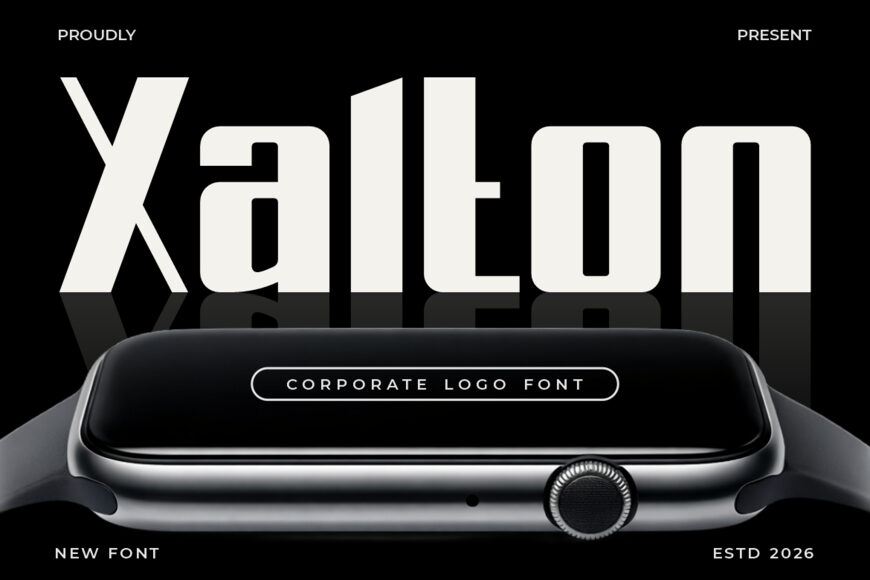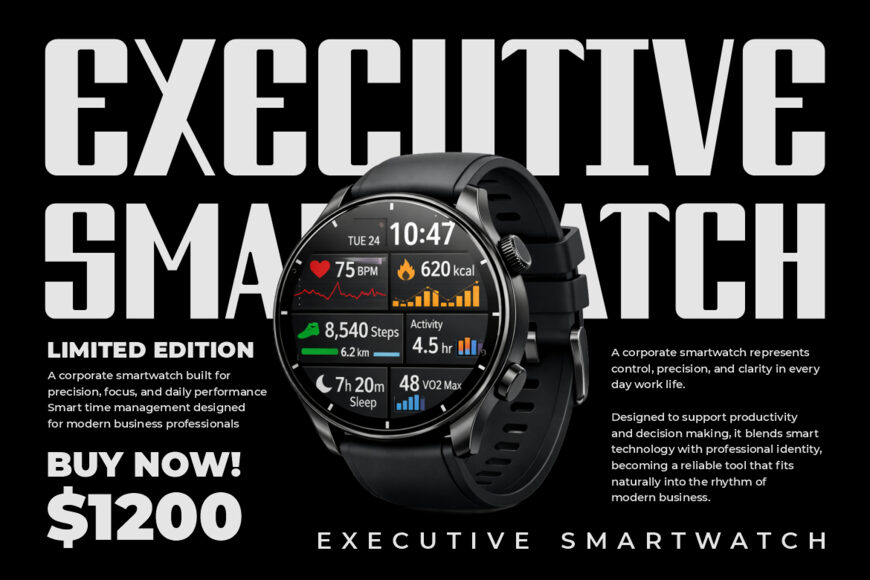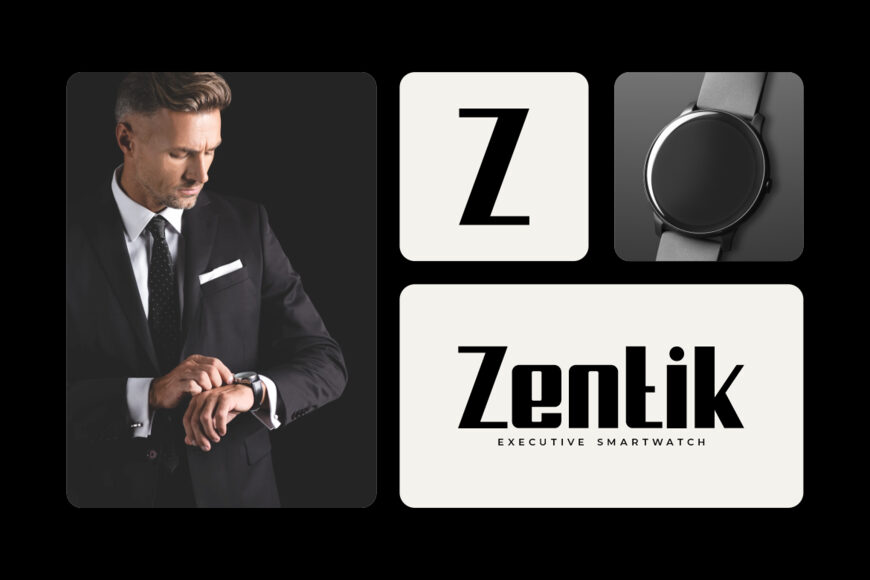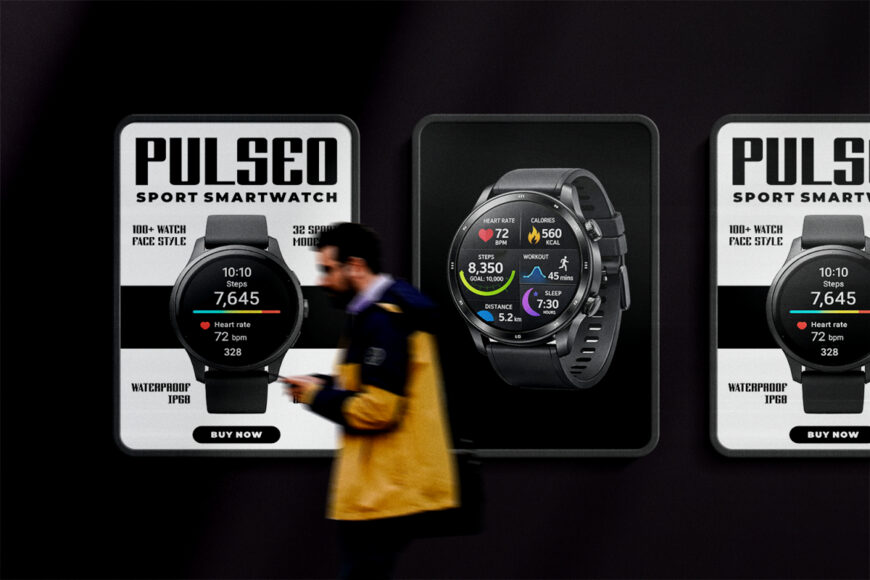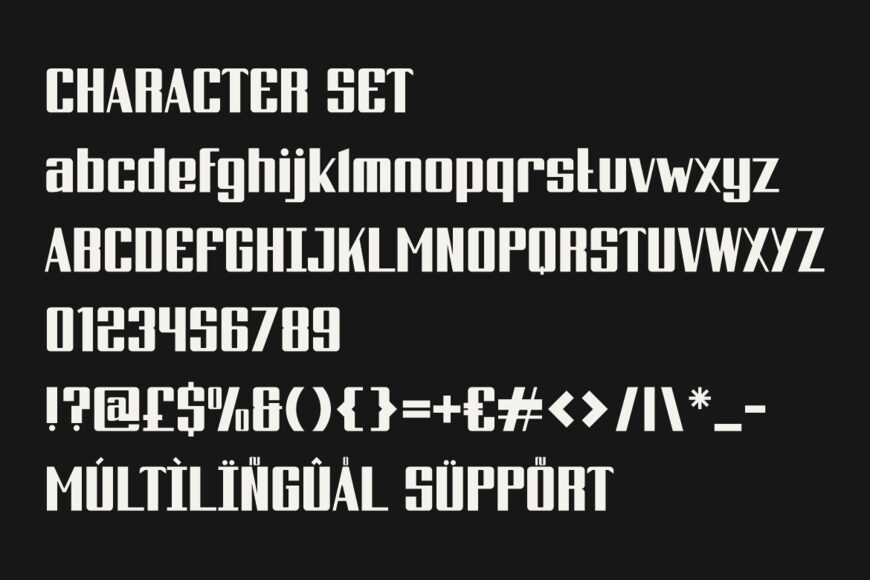
Xalton is a bold, modern display typeface created for professional branding. Its geometric letterforms use thick, consistent strokes, tall proportions, and strong vertical alignment to create a clean, structured appearance. Sharp edges and straight lines convey precision, while rounded counters add balance and enhance readability.
Combining a contemporary corporate aesthetic with a subtle technological feel, Xalton communicates confidence, innovation, and clarity. It is an excellent choice for corporate logos, technology companies, and modern business identities.